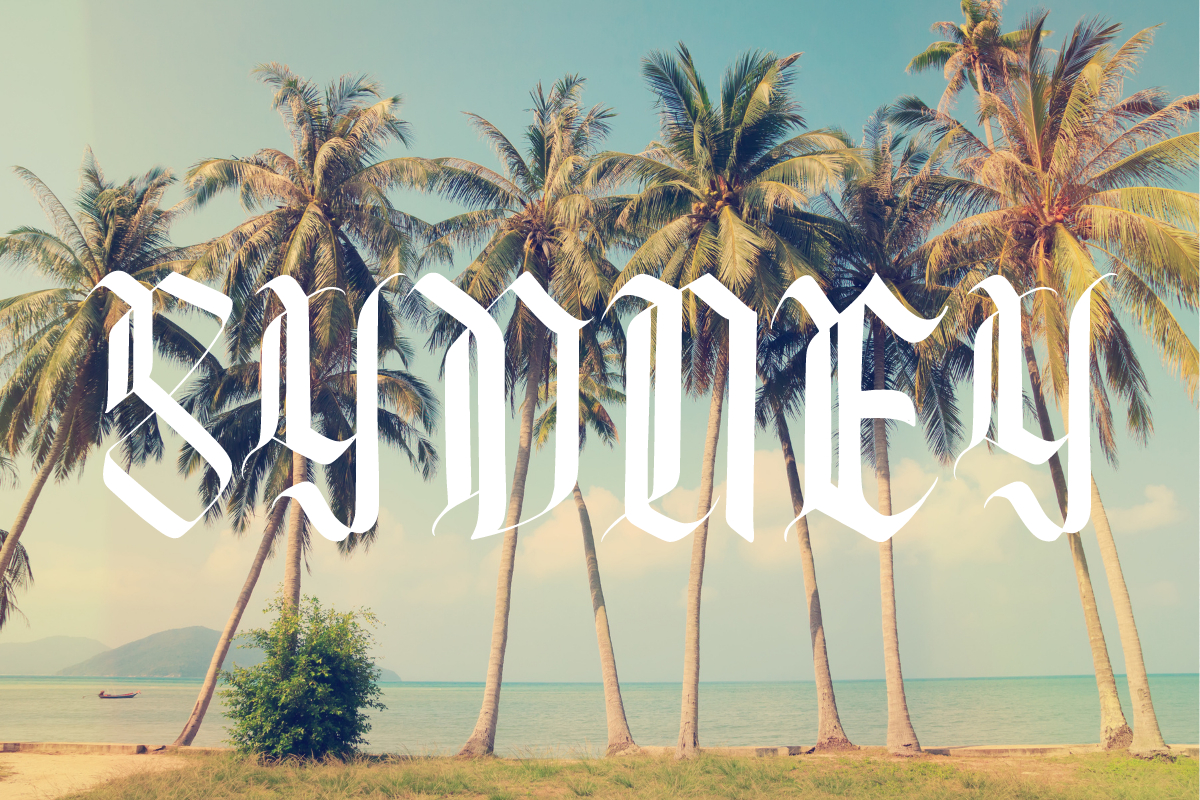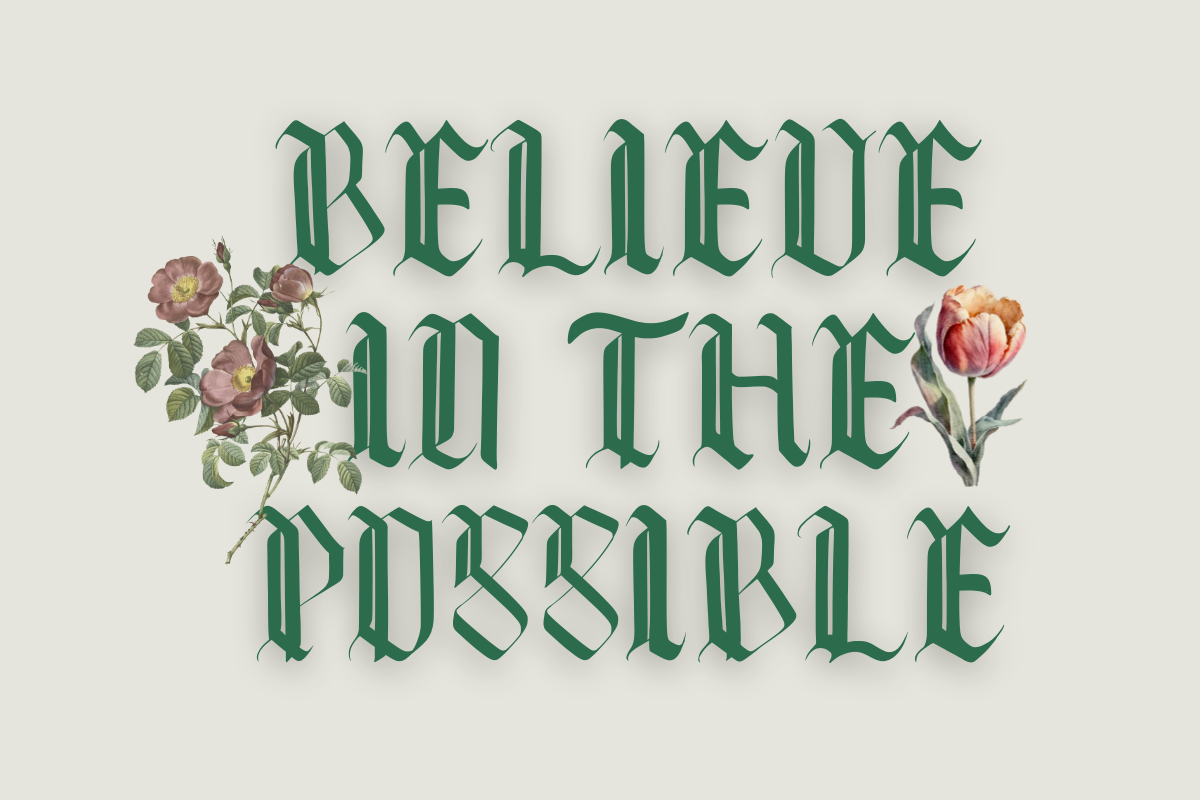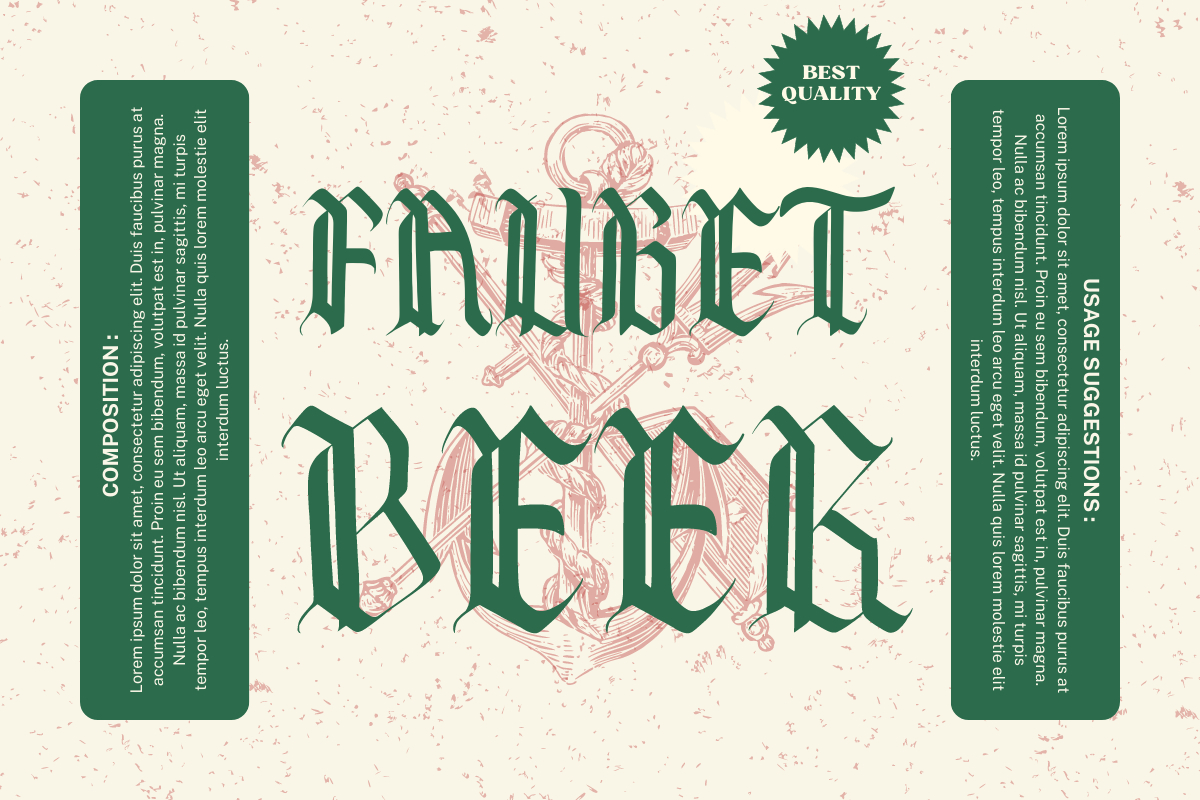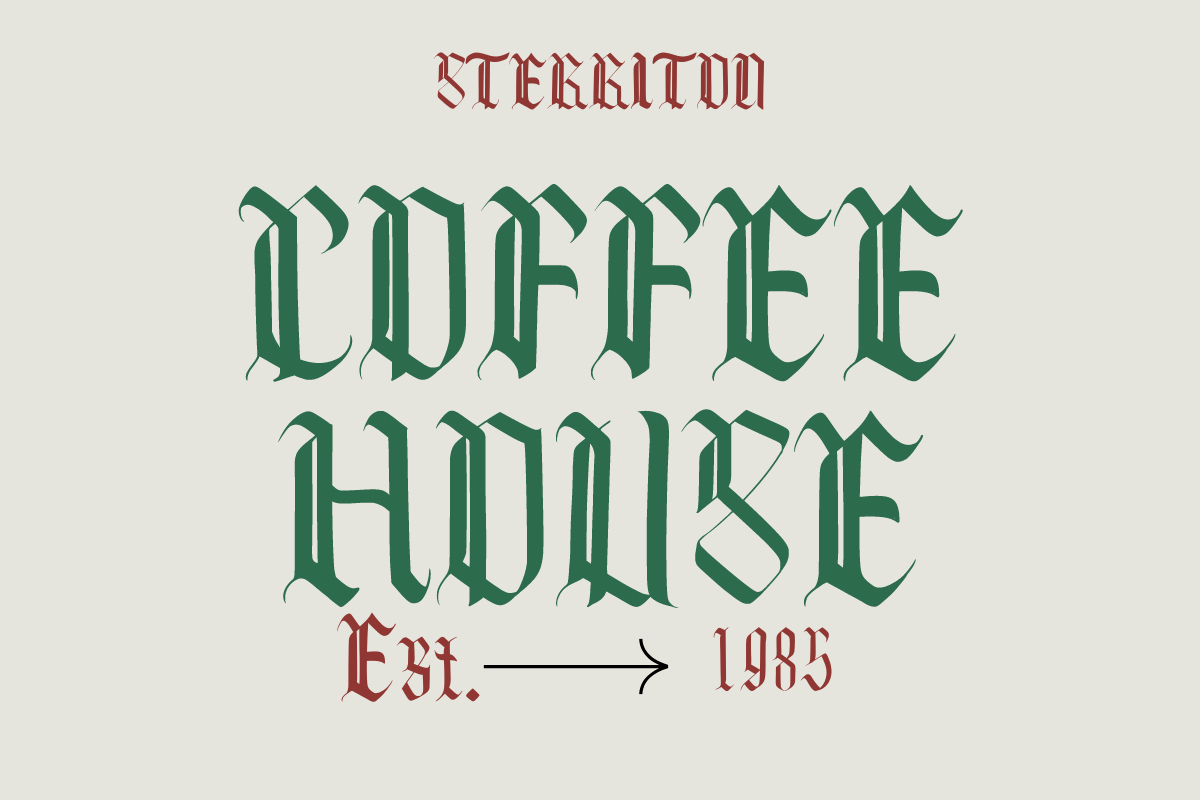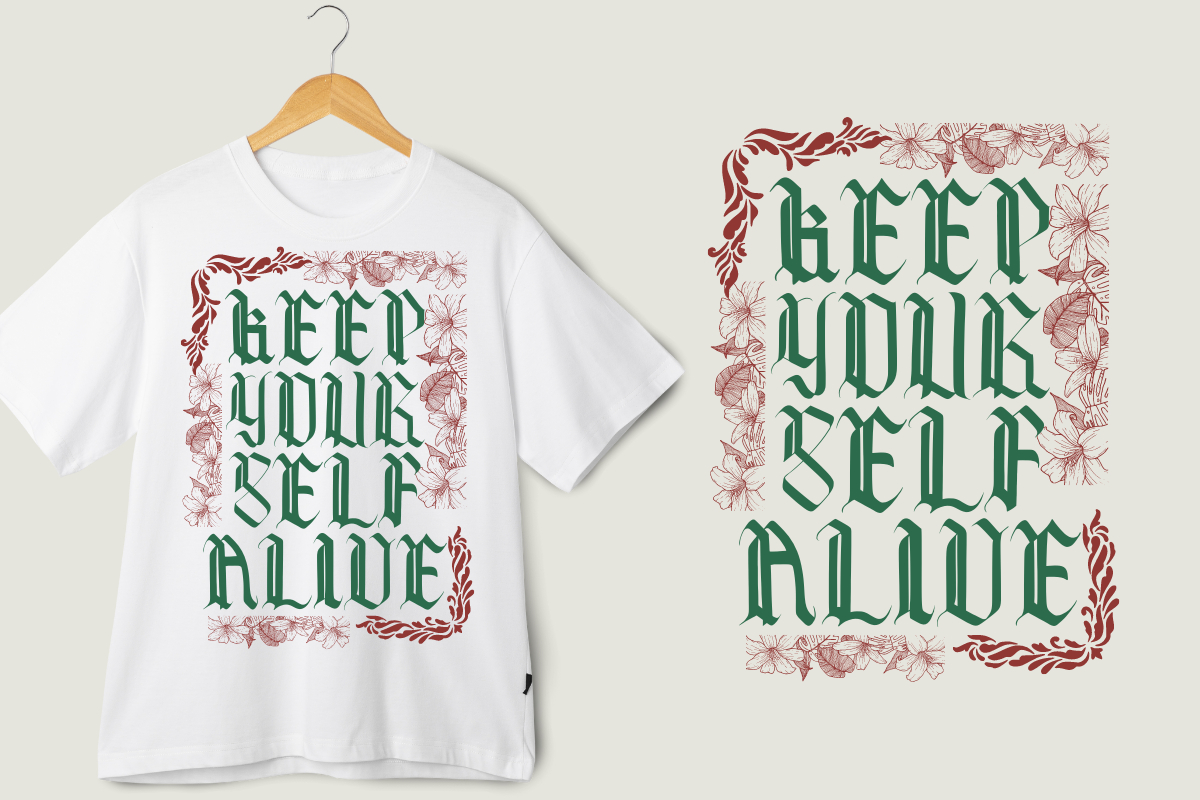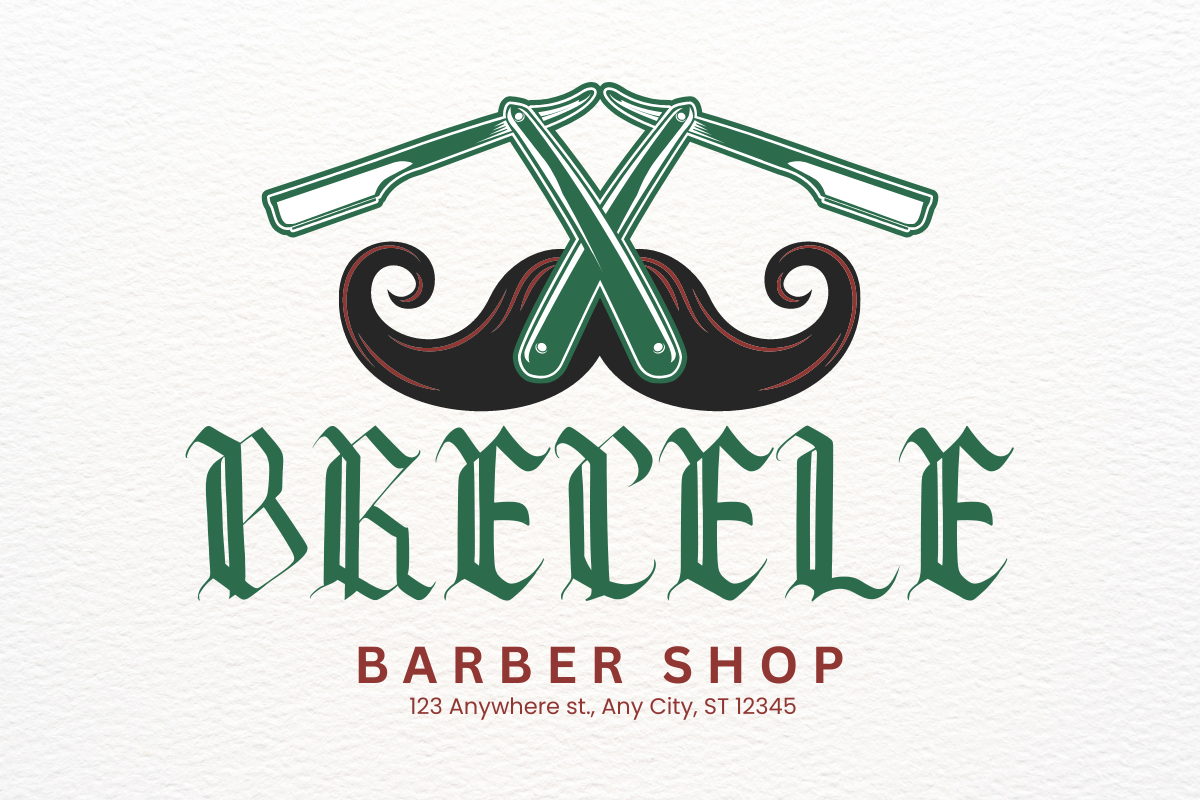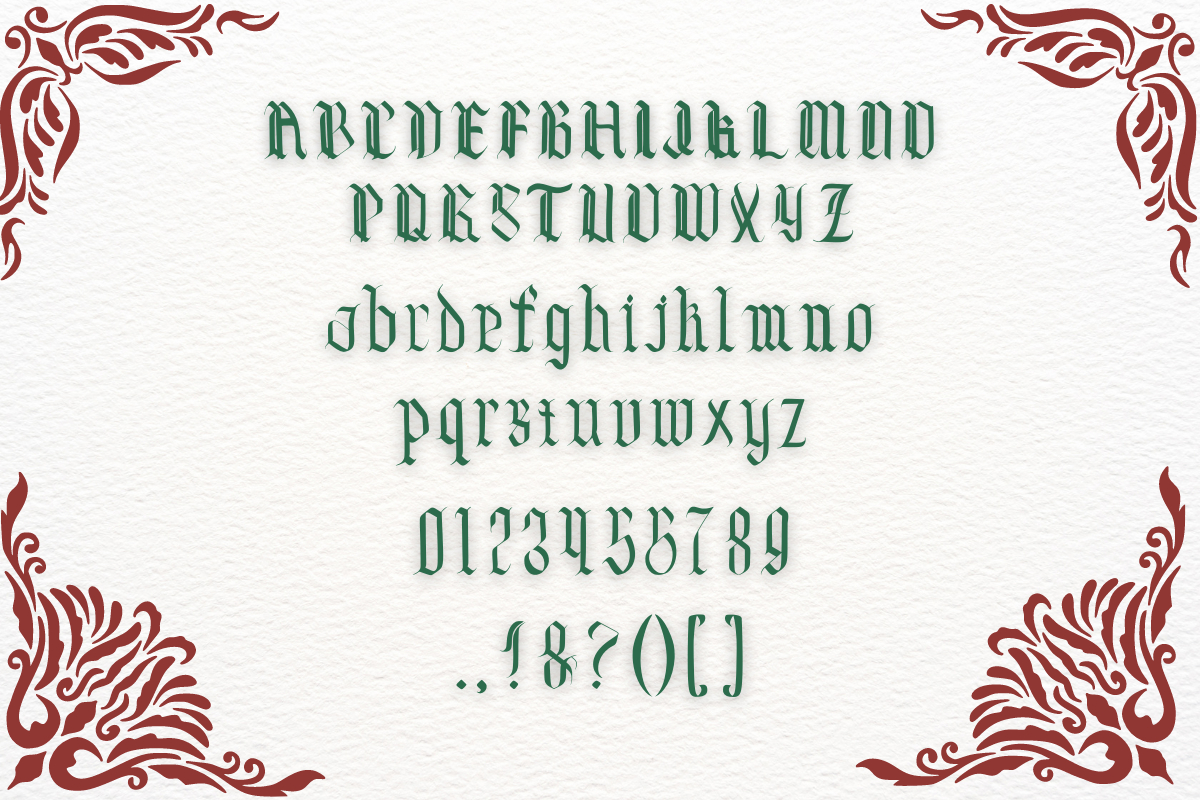
About Destroys Font
Destroys is a Blackletter font, it’s perfect for designs that need a ghotic, cheery accent.Destroys suitable for book covers, posters, packaging, merchandise, logotypes, and many more!